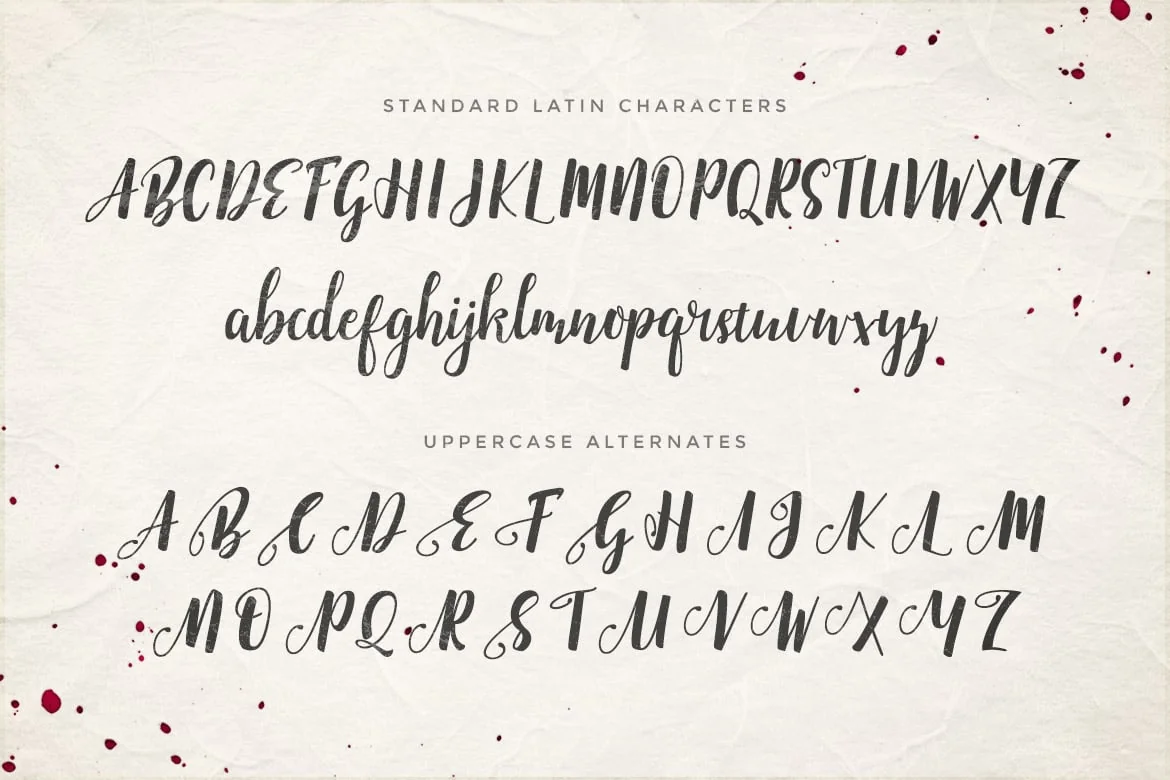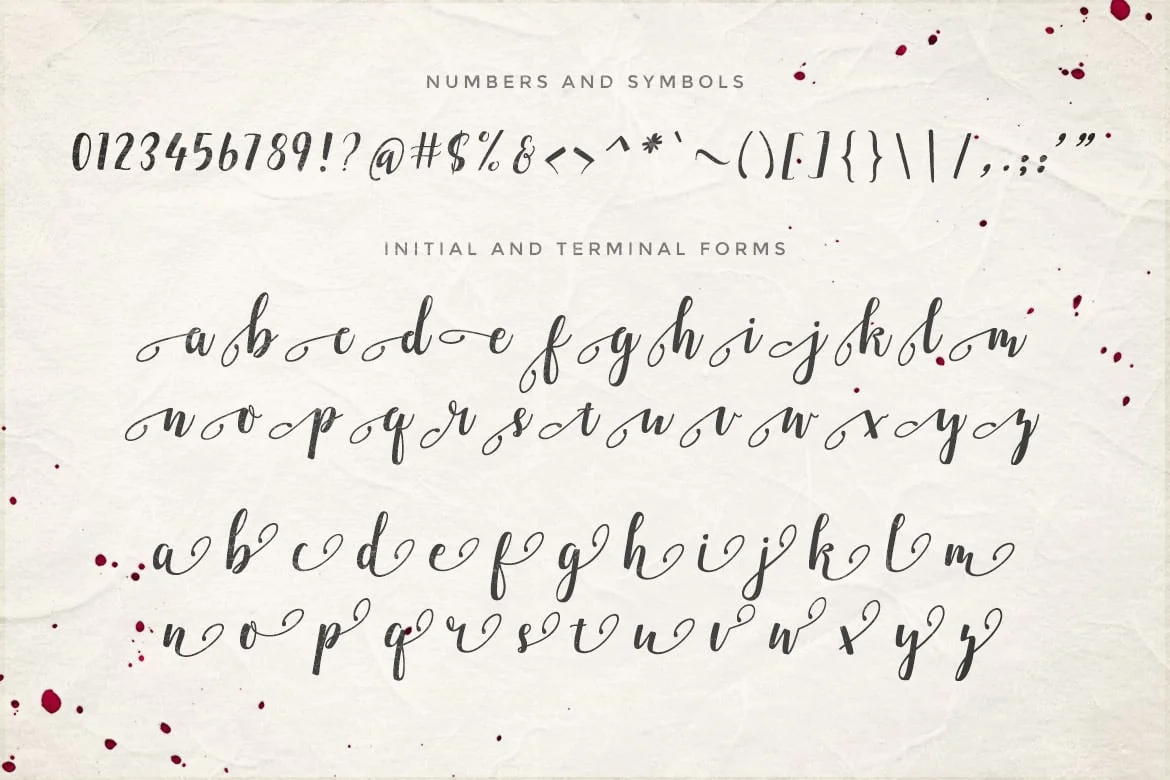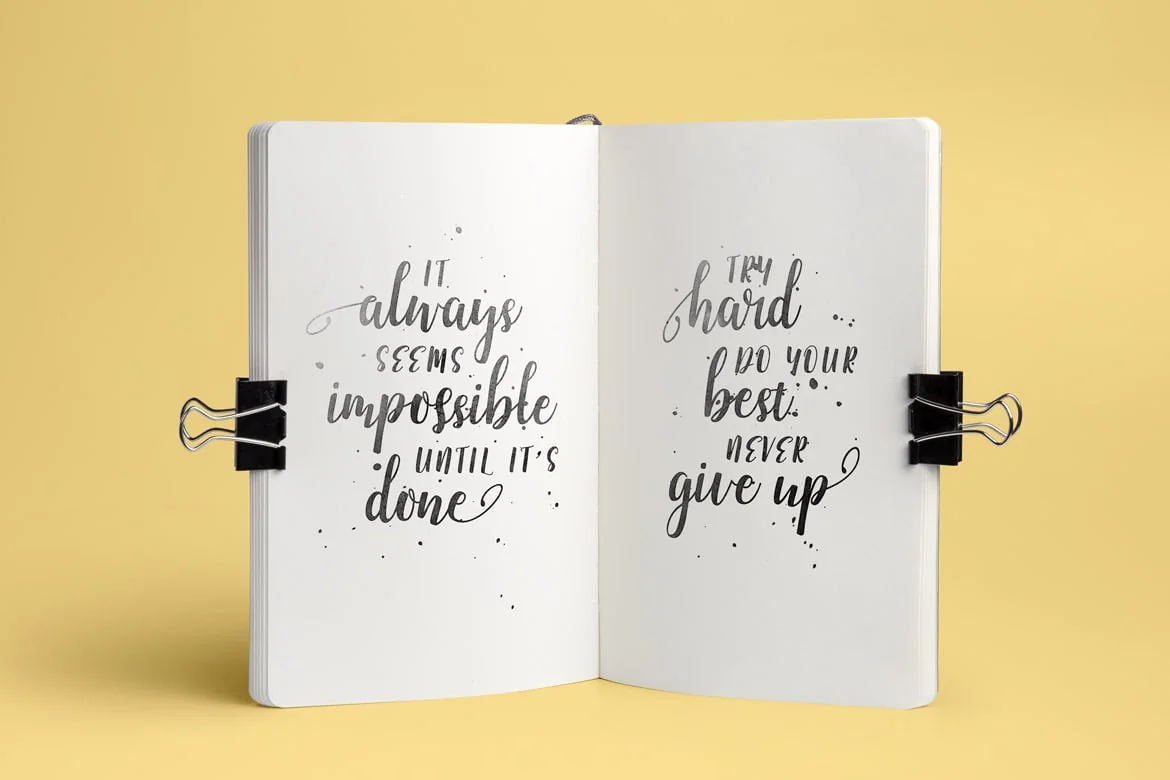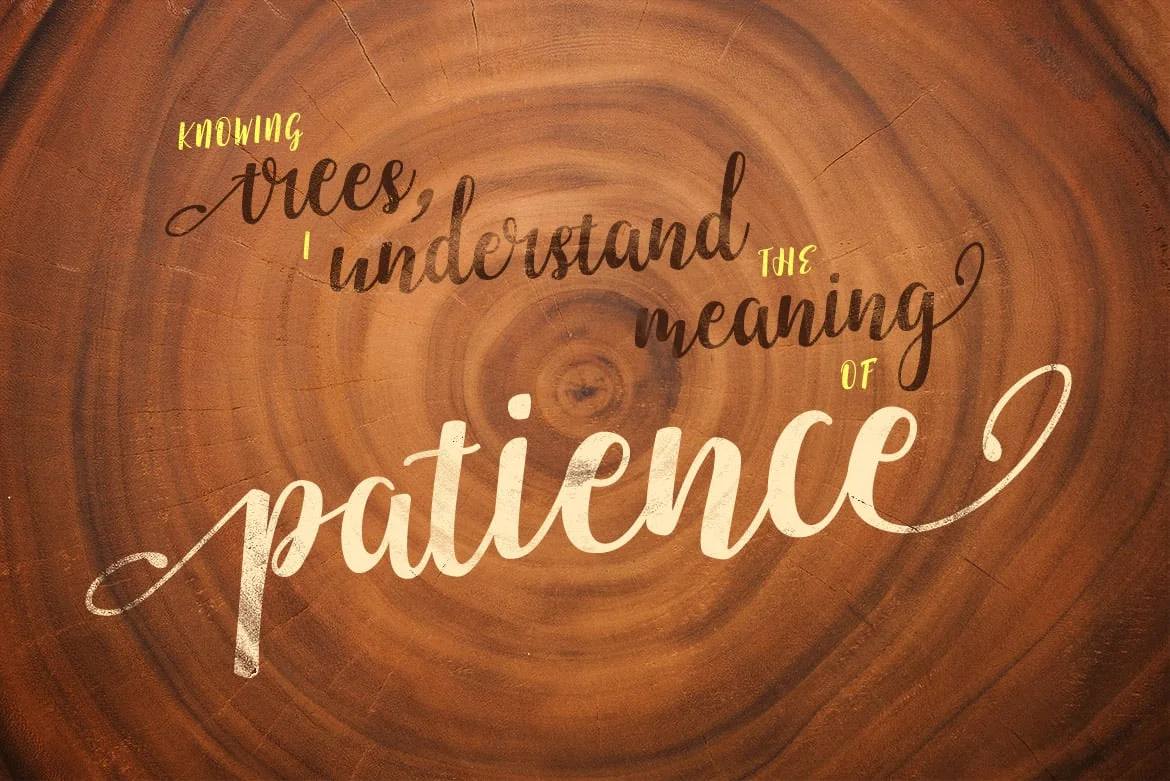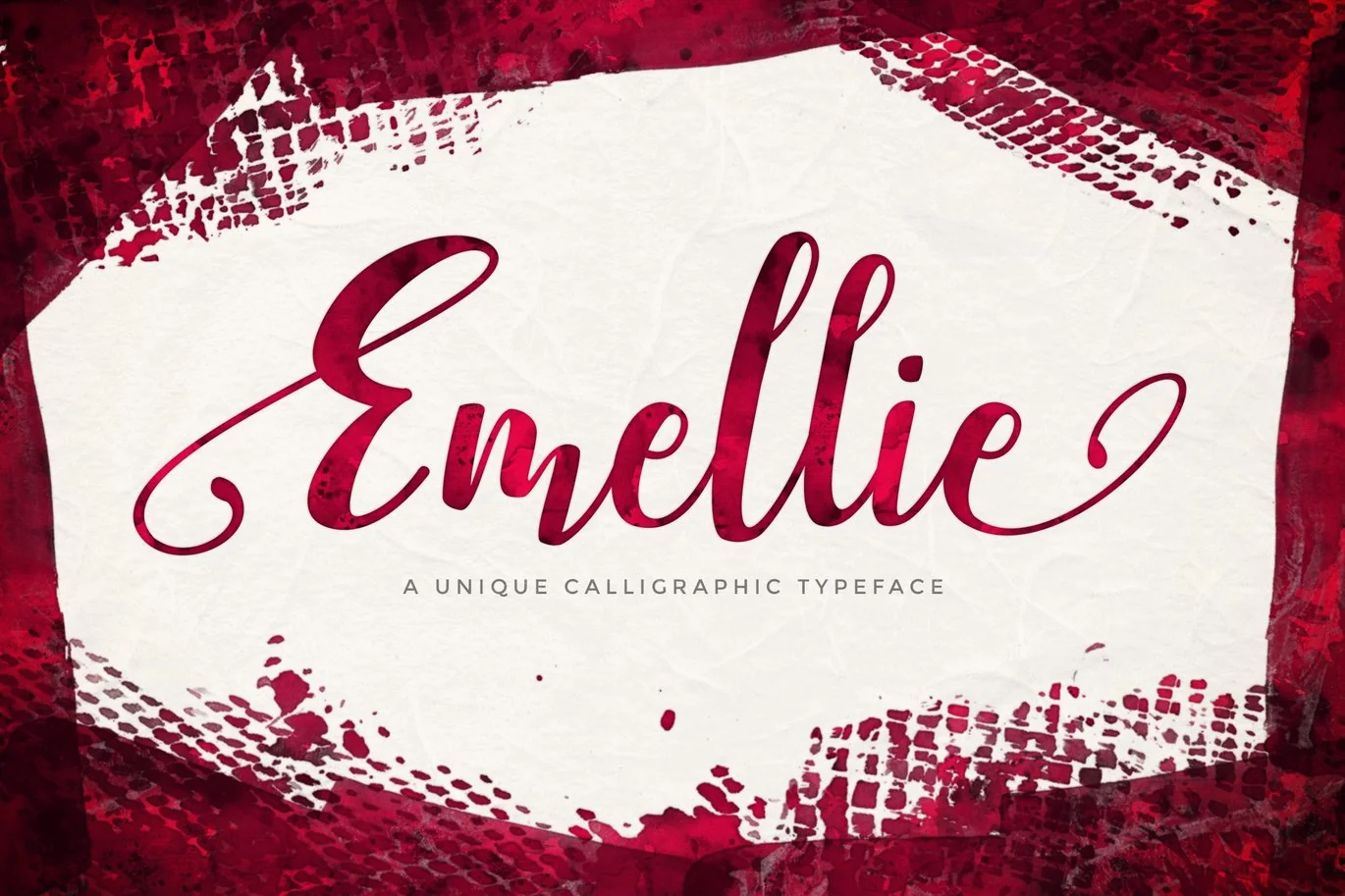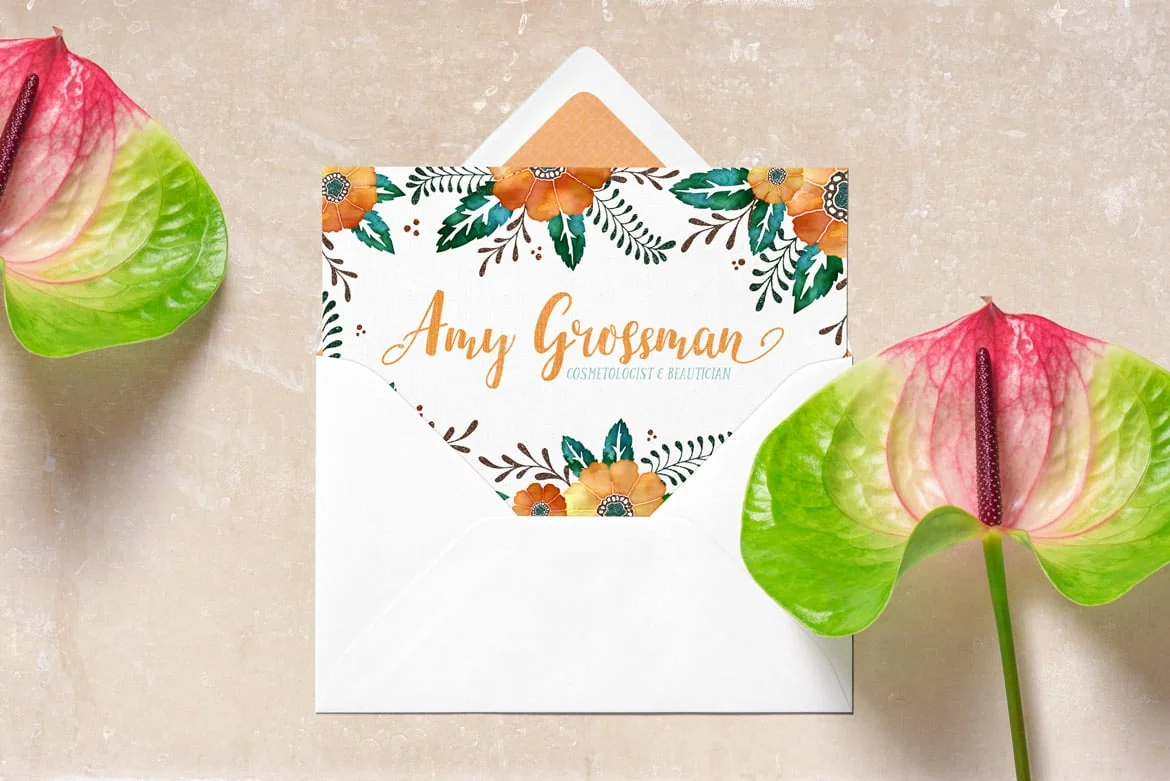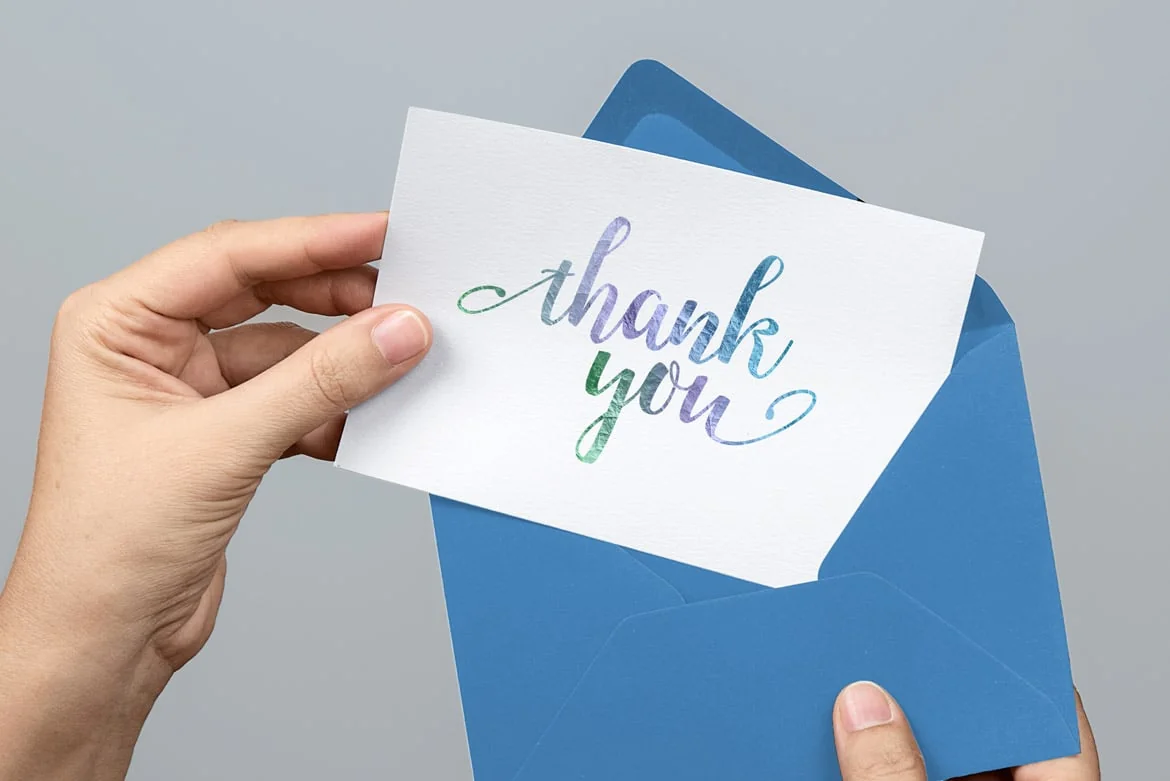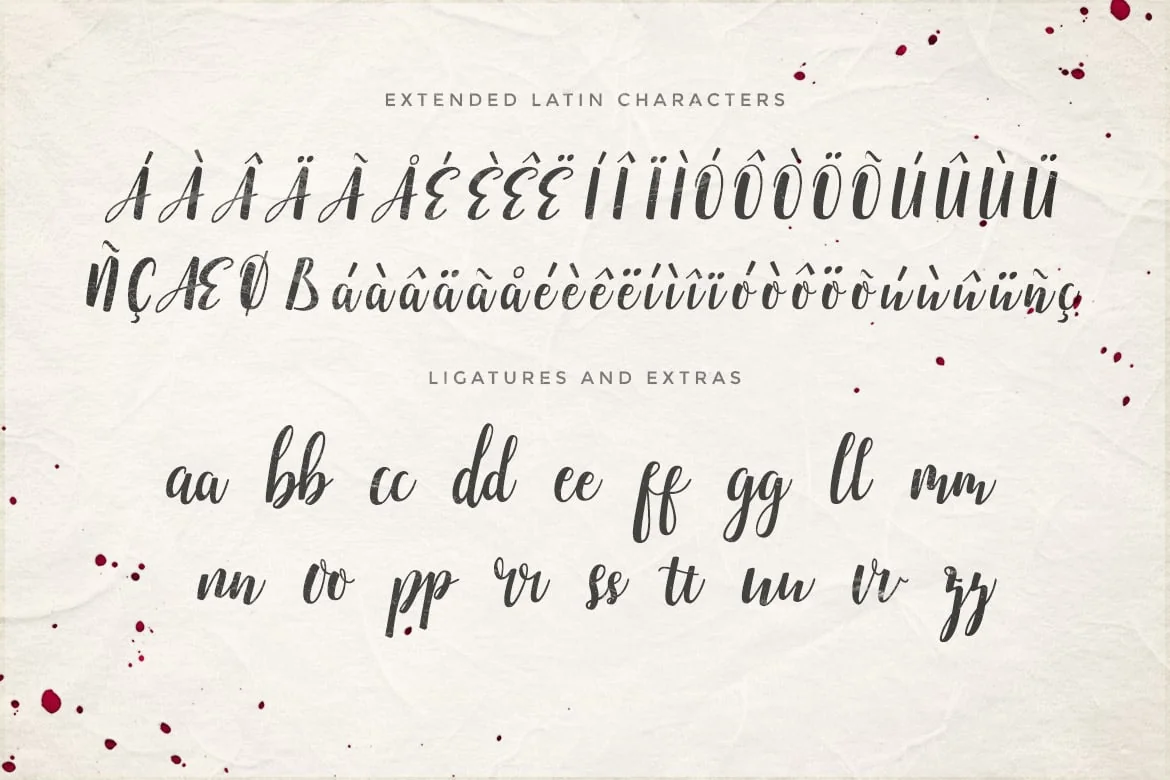
Emellie Script Font
Emellie is unique calligraphic typeface with fun feminine swashes, and is perfect for logos, greeting cards, wedding collateral, and more.
Included are standard Latin characters, uppercase alternates, initial and terminal forms, numbers and symbols, extended Latin characters, and select ligatures.
Emellie is complete and beautiful, and will find itself right at home in any project requiring a script font.